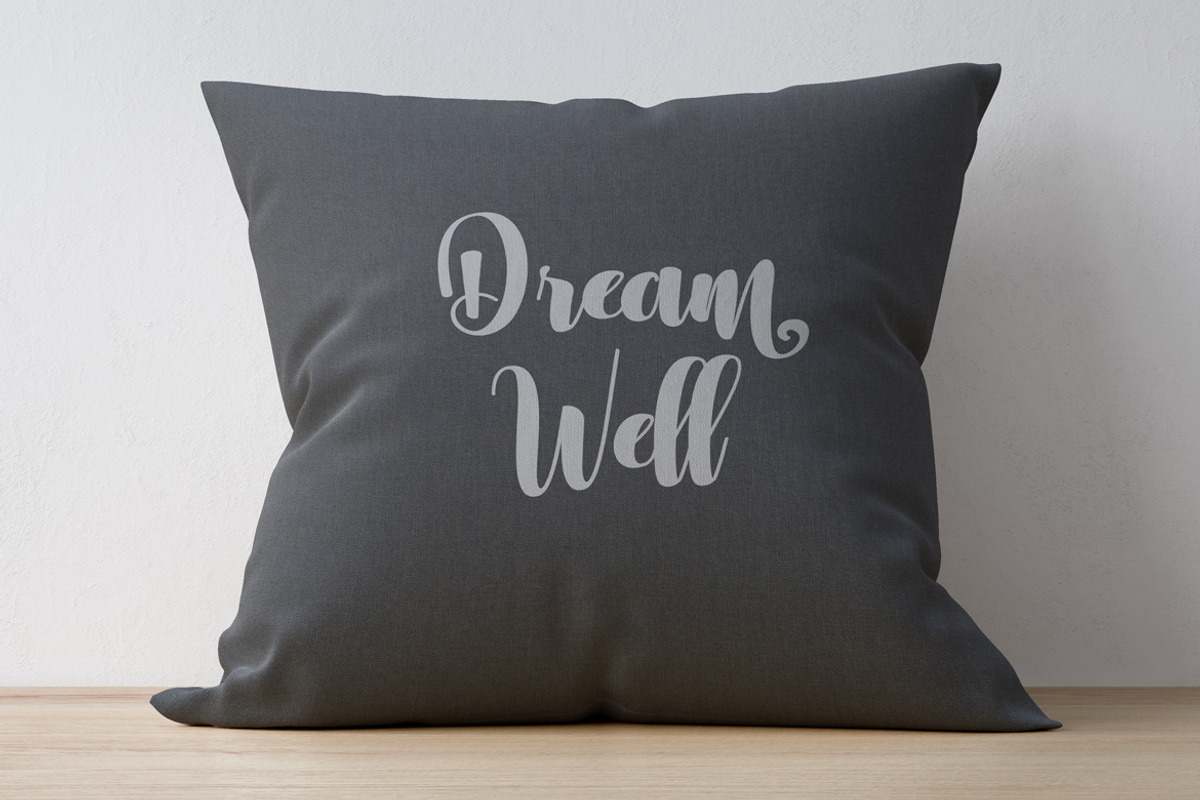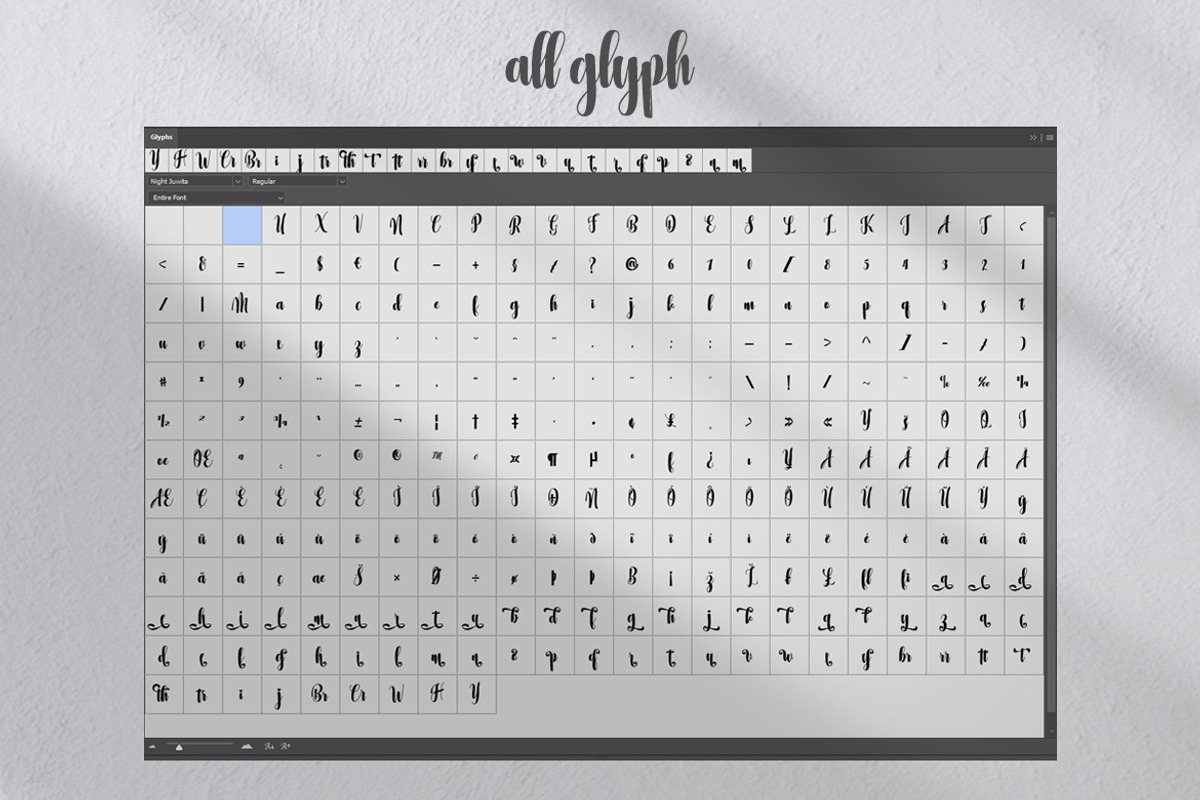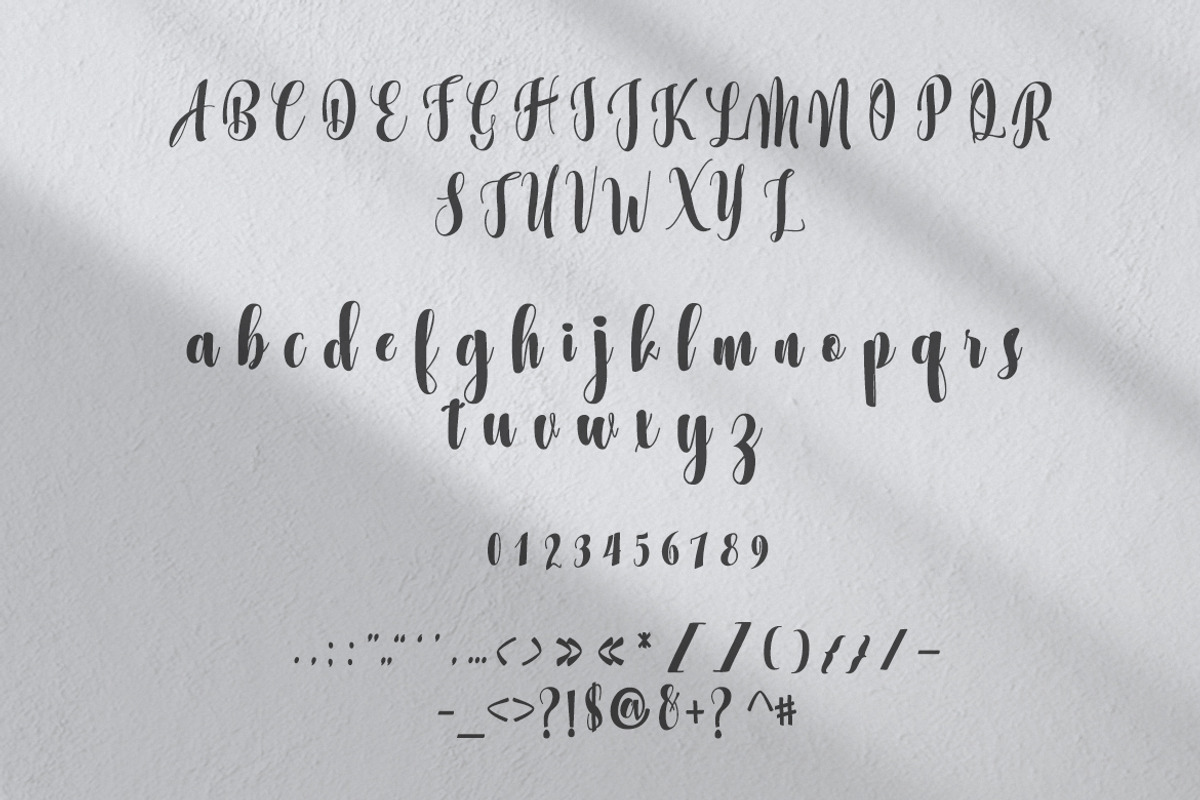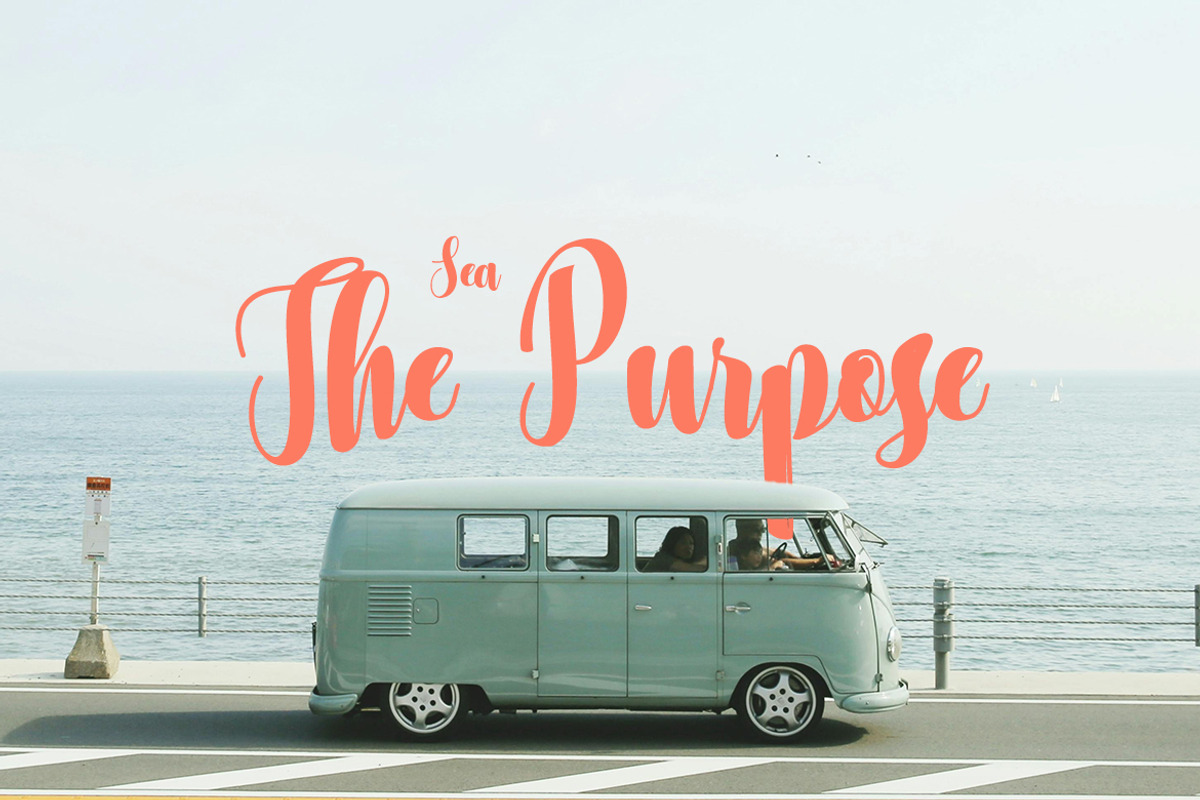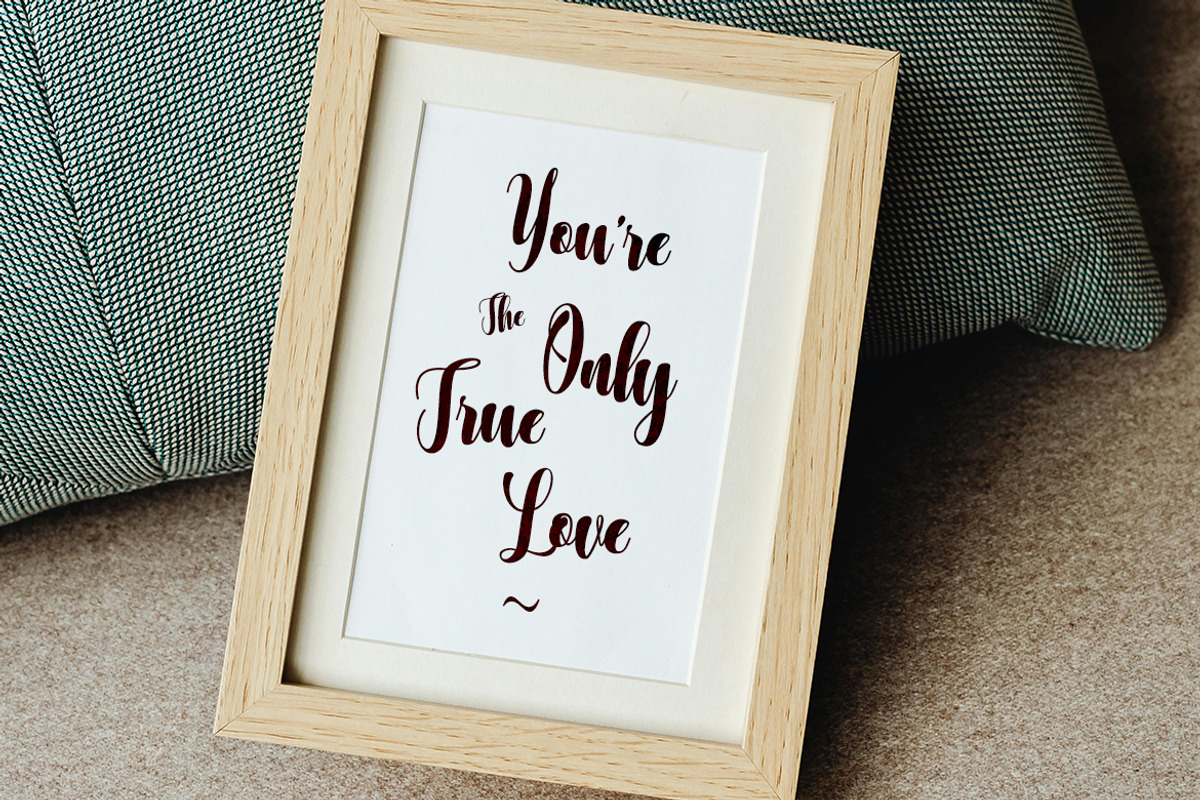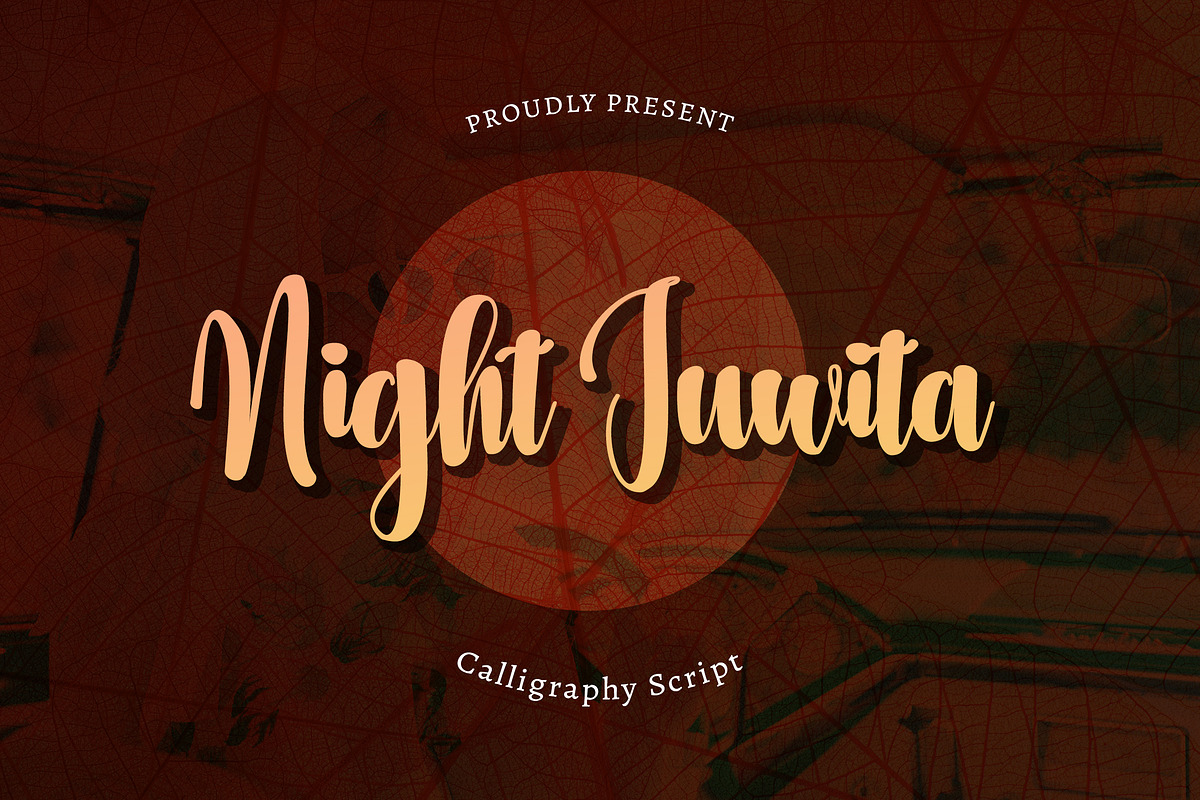
Night Juwita Lovely Calligraphy
Introducing Night Juwita a Lovely Font Script, a font that adds a touch of elegance and flair to your designs. With its smooth brush strokes and fluid lines, Night Juwita brings a sense of sophistication to any project. Whether you're creating invitations, posters, or branding materials, this font will elevate your work to the next level. Night Juwita provides versatility and ease of use across various platforms. Transform your designs with Night Juwita Calligraphy Brush Script and let your creativity shine.